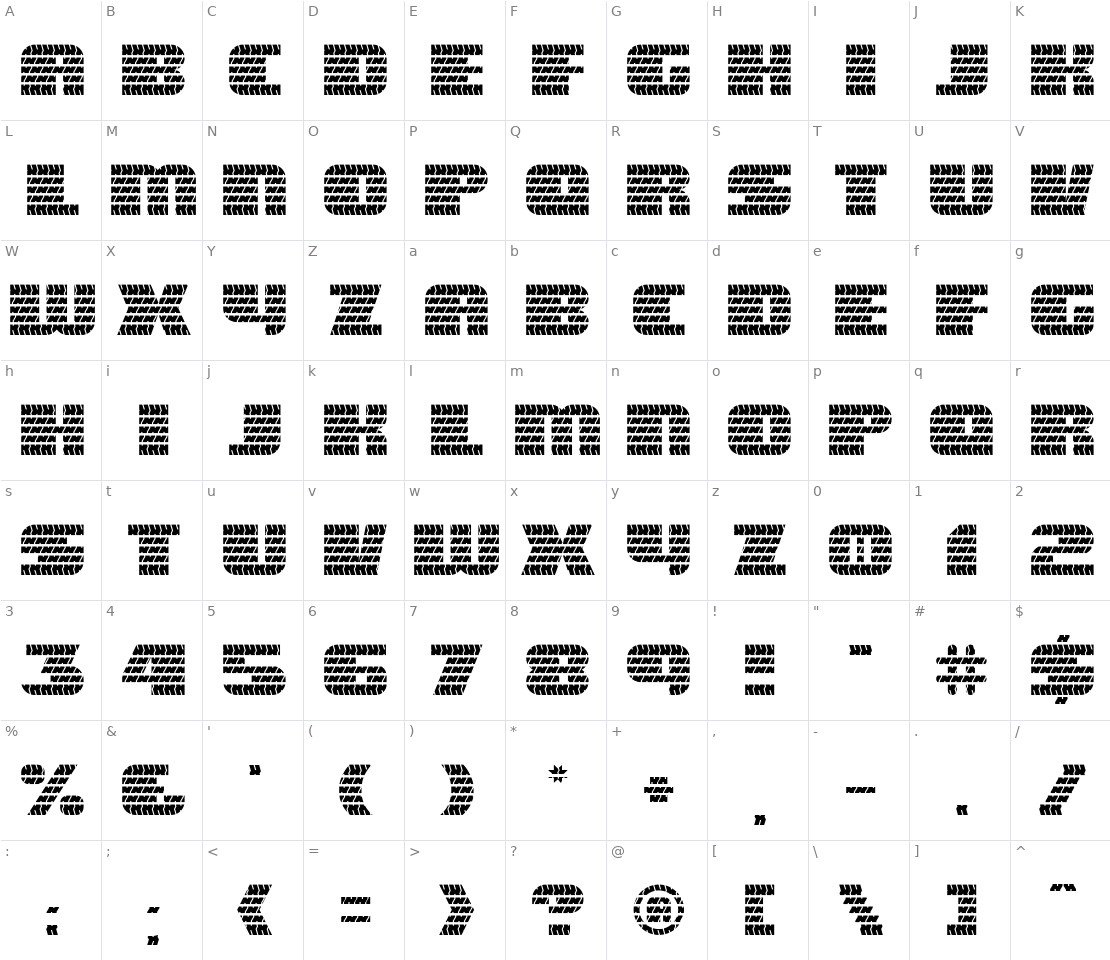
Eagle GT II
Eagle GT II is a heavy display face from Grey Wolf Web Works with letterforms built from tire tread patterns, giving every character a rubbery, textured surface. The bold, striped construction makes the automotive reference unmistakable, landing it squarely in racing posters, car show flyers, and garage branding. It's a one-trick pony, but it commits fully to that trick.